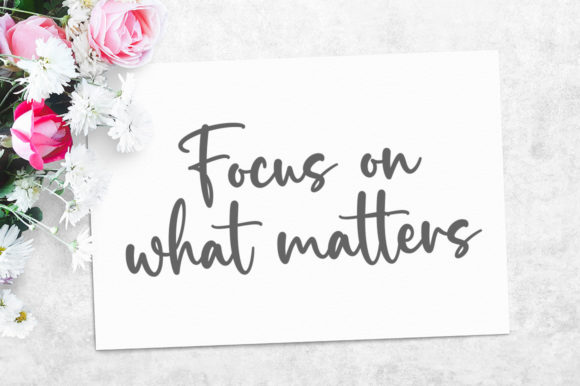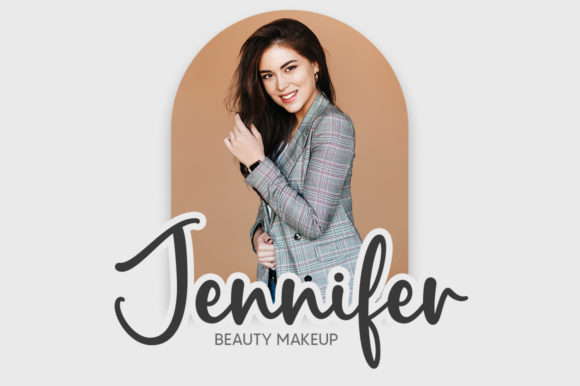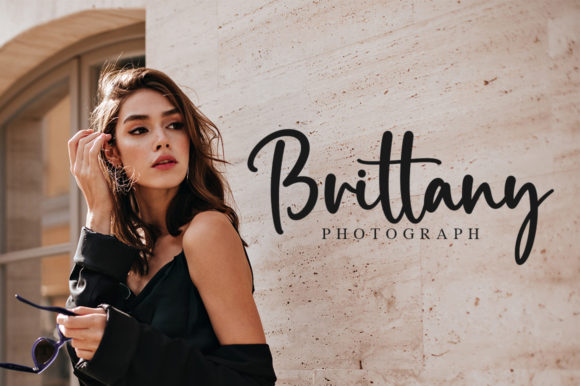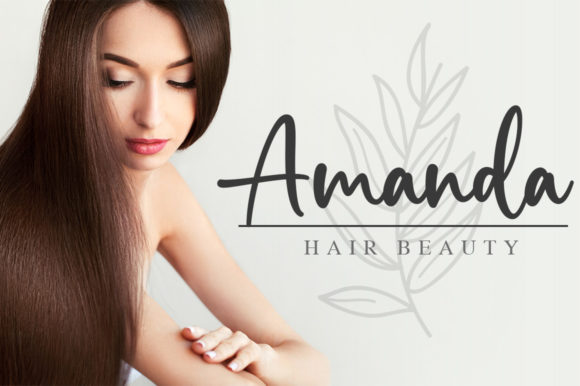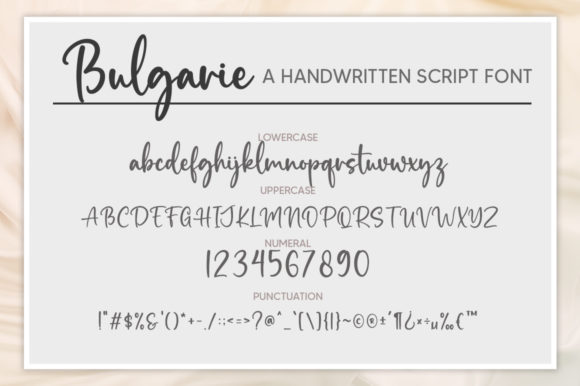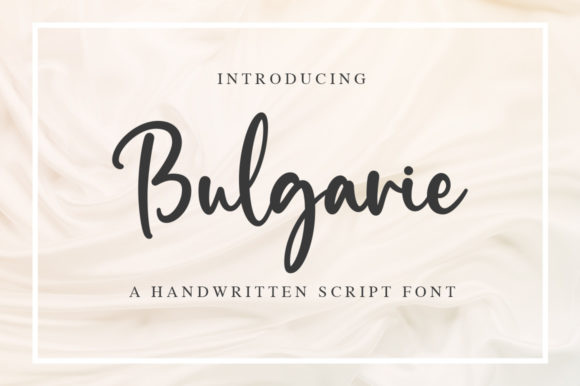
Bulgarie Font: A Delicate and Elegant Handwritten Font for Your Designs
Are you a designer or crafter looking for a font that exudes elegance and sophistication? Look no further than Bulgarie Font. This beautiful handwritten font is perfect for a wide range of design projects, from wedding invitations and branding materials to digital products and craft projects. In this article, we’ll take a closer look at Bulgarie Font and explore its features, benefits, and uses.
What is Bulgarie Font?
Bulgarie Font is a delicate, elegant, and flowing handwritten font that has been carefully crafted to provide a unique and sophisticated look to your designs. Its beautiful and well-balanced characters make it an excellent choice for a wide pool of designs, from modern and minimalist to traditional and ornate.
Features of Bulgarie Font
Bulgarie Font has several features that make it an attractive choice for designers and crafters. Some of its key features include:
- Delicate and elegant design: Bulgarie Font has a delicate and elegant design that is perfect for creating sophisticated and refined designs.
- Well-balanced characters: The font has well-balanced characters that ensure a smooth and harmonious flow of text.
- Handwritten style: Bulgarie Font has a handwritten style that gives it a personal and unique touch.
- Wide range of uses: The font is versatile and can be used for a wide range of design projects, from wedding invitations and branding materials to digital products and craft projects.
Benefits of Using Bulgarie Font
Using Bulgarie Font in your designs can have several benefits. Some of the benefits include:
- Unique and sophisticated look: Bulgarie Font can give your designs a unique and sophisticated look that sets them apart from others.
- Improved readability: The font’s well-balanced characters and flowing design make it easy to read and understand.
- Versatility: Bulgarie Font can be used for a wide range of design projects, making it a great addition to your font collection.
Uses of Bulgarie Font
Bulgarie Font can be used for a wide range of design projects, including:
- Wedding invitations and stationery: The font’s elegant and sophisticated design makes it perfect for wedding invitations and stationery.
- Branding materials: Bulgarie Font can be used to create professional and sophisticated branding materials, such as logos, business cards, and brochures.
- Digital products: The font can be used to create digital products, such as ebooks, courses, and software.
- Craft projects: Bulgarie Font can be used for craft projects, such as card making, scrapbooking, and journaling.
Tips for Using Bulgarie Font
Here are some tips for using Bulgarie Font in your designs:
- Use it for headlines and titles: Bulgarie Font is perfect for headlines and titles, where its elegant and sophisticated design can shine.
- Pair it with other fonts: The font can be paired with other fonts to create a unique and interesting look.
- Experiment with different colors: Bulgarie Font can be used with different colors to create a unique and eye-catching look.
- Use it consistently: To create a cohesive look, use Bulgarie Font consistently throughout your design.
In conclusion, Bulgarie Font is a beautiful and elegant handwritten font that is perfect for designers and crafters looking to add a touch of sophistication to their designs. Its delicate and flowing design, well-balanced characters, and versatility make it an excellent choice for a wide range of design projects. Whether you’re creating wedding invitations, branding materials, digital products, or craft projects, Bulgarie Font is sure to impress.